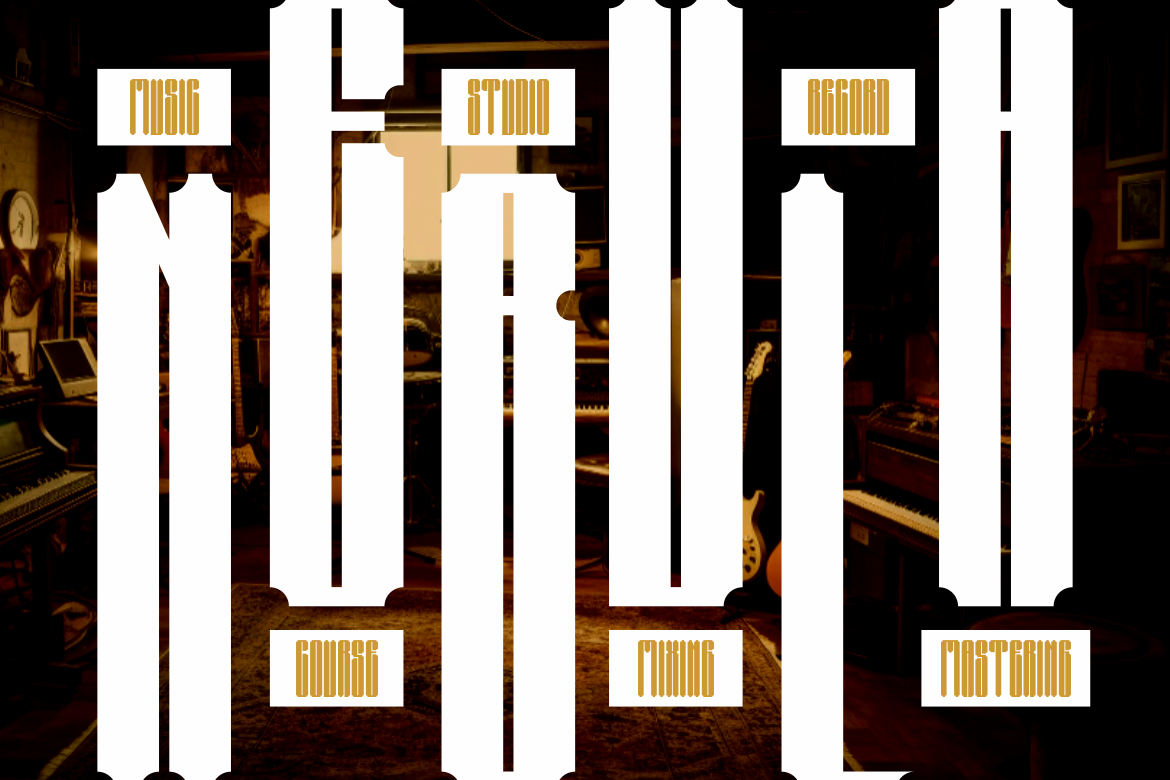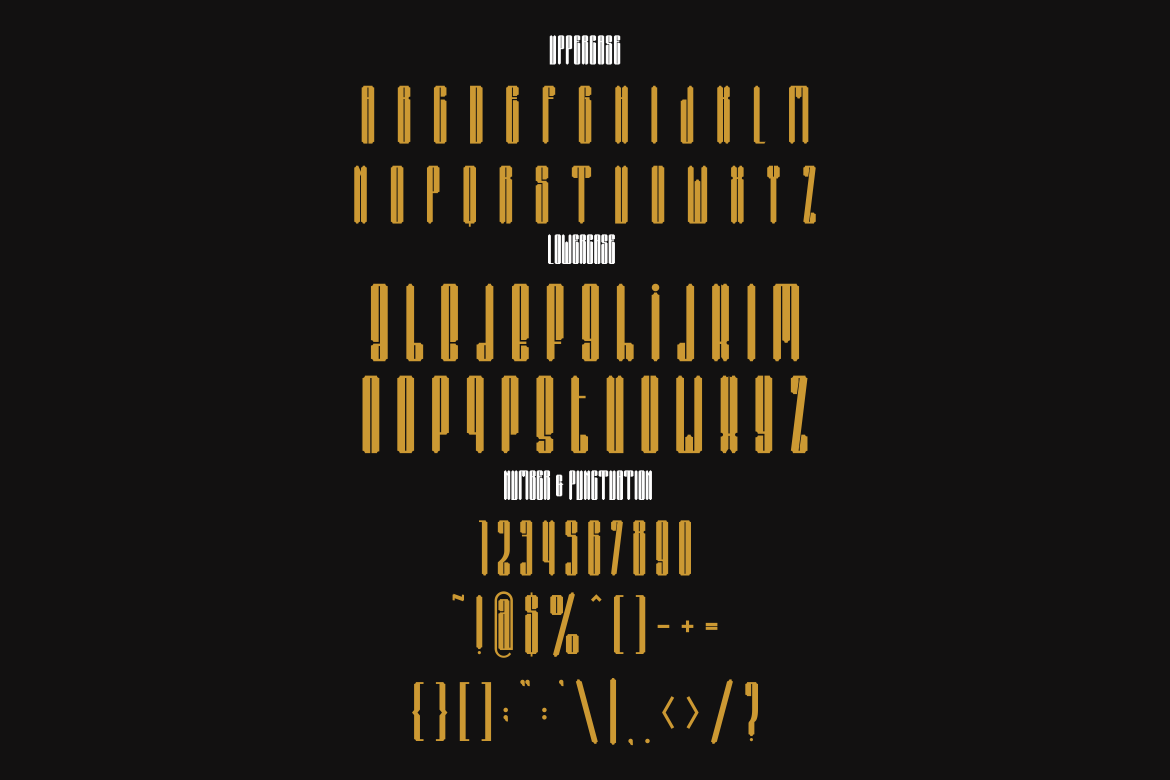
Slimetra Condensed Font is a bold, narrow typeface designed to bring maximum impact with minimal space. Its tall, elongated letterforms create a striking presence that feels both vintage and modern. The sharp verticals and geometric edges highlight strength, while subtle rounded cuts add character and uniqueness. Perfectly balanced between retro and contemporary, Slimetra is crafted for attention-grabbing layouts that demand elegance and boldness in equal measure.
This font is ideal for logos, branding, posters, packaging, editorial titles, and even film or music cover designs. Its condensed form makes it suitable for tight spaces while maintaining strong legibility. The dramatic proportions give it a distinctive look that resonates with retro nostalgia yet feels fresh for modern design needs. Whether used on business branding, book covers, or stylish magazine layouts, Slimetra ensures every design carries a powerful, unforgettable identity.